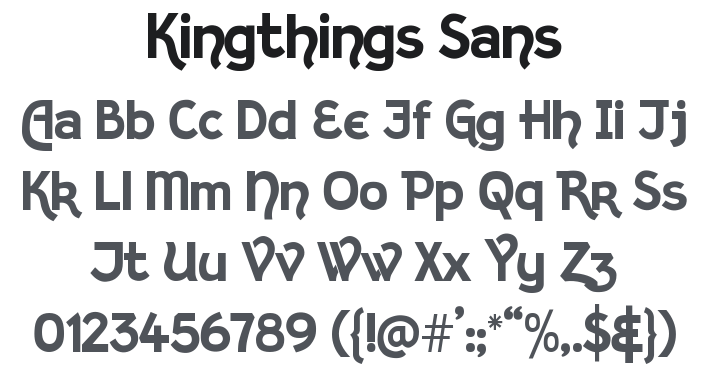
Kingthings Sans Font
About Kingthings Sans
I made this font because I fancied designing a font that was definitely Sans Serif but had fiddly bits and was more decorative. It is based on Kingthings Hand. Yes, I agree, it is peculiar... I like peculiar! If you like peculiar too, take a look at Kingthings Chimaera, it's based on this font.